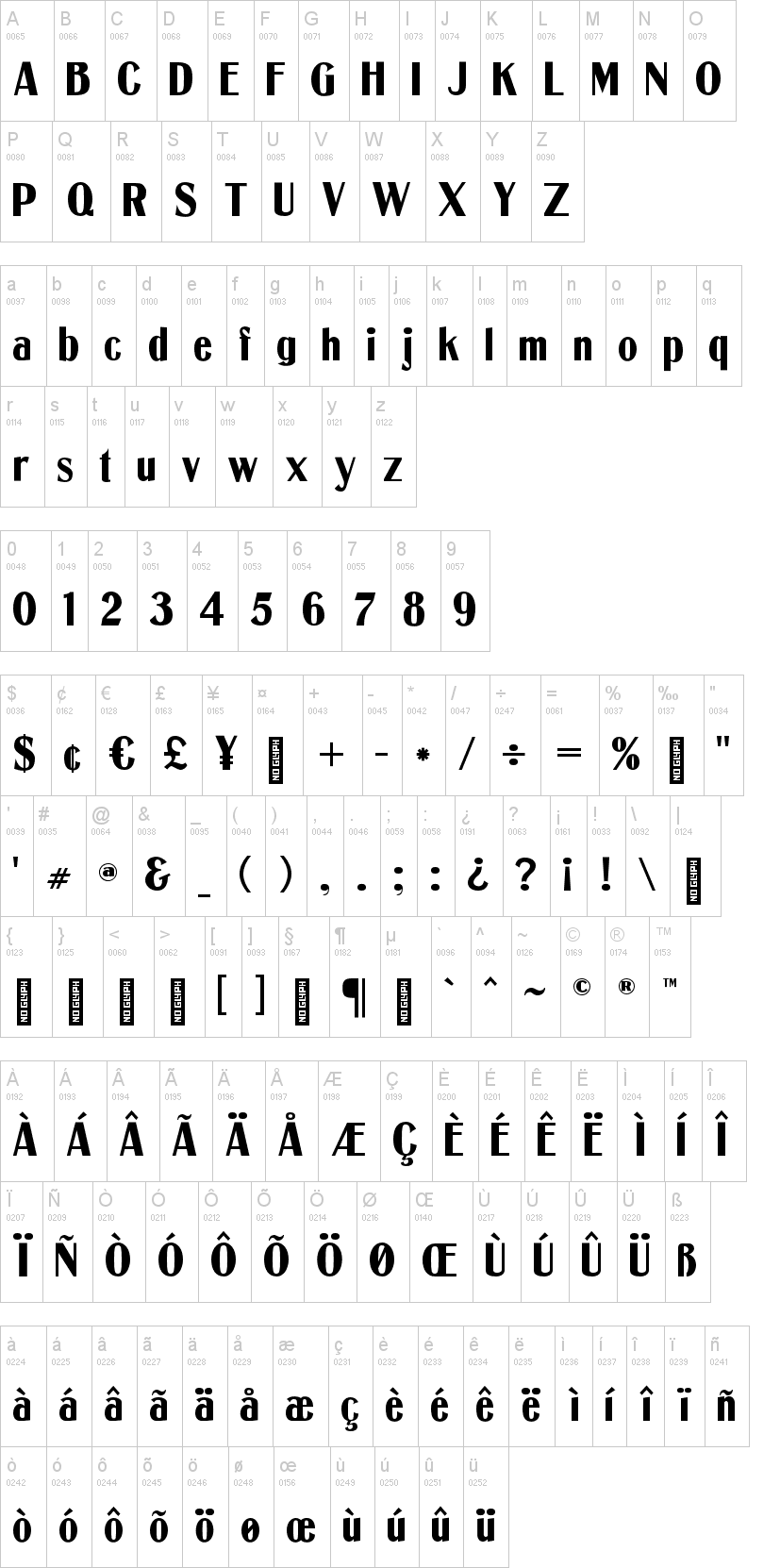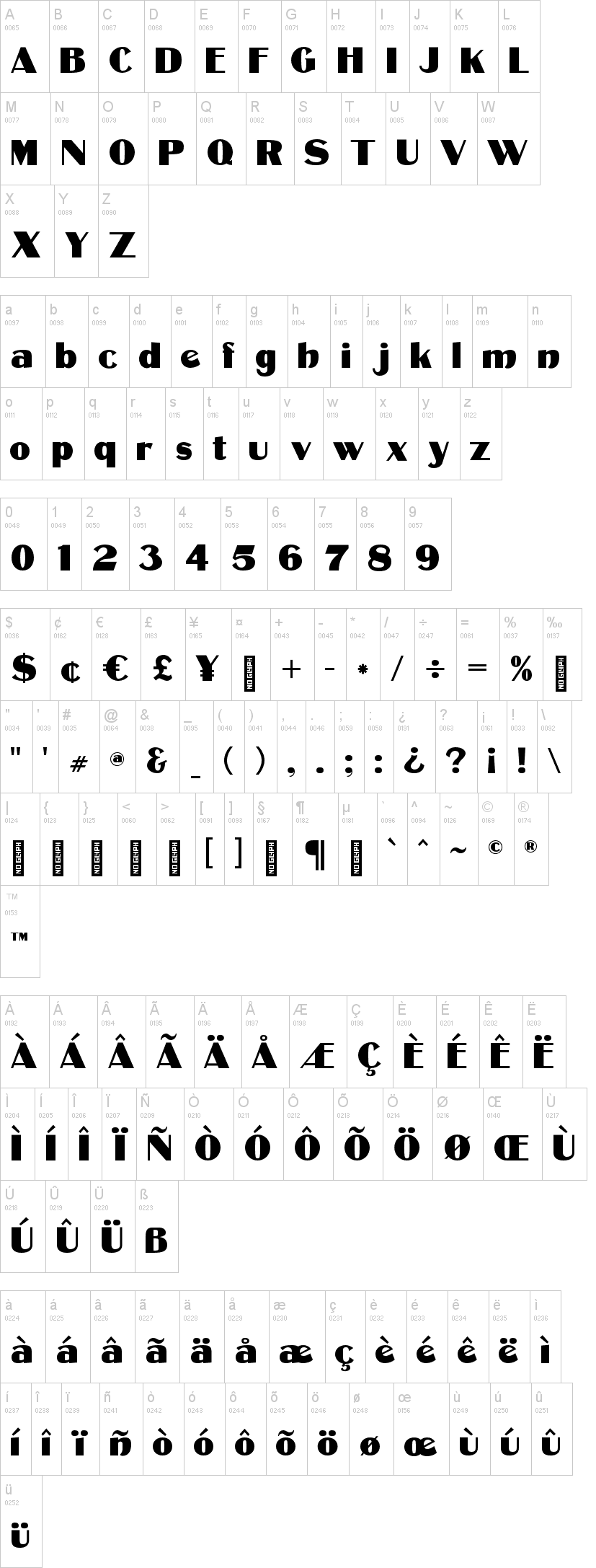
CotrellCFExtraBoldCondensed-Regular.otfNote of the authorCotrell CF ExtraBold and Cotrell CF ExtraBold Condensed are my revival of Matthews and Condensed Matthews, typefaces I found in Specimen Book and Catalog, published by the Inland Type Foundry (May 1902). It is a bold serif font suitable for posters, headlines, flyers, advertising, packaging and the like. In a previous iteration of Cotrell CF ExtraBold I suppressed the bosterous flared stem endings. These are now restored with the less boisterous stems included as alternates. Many of the lower case glyphs have alternates as well.